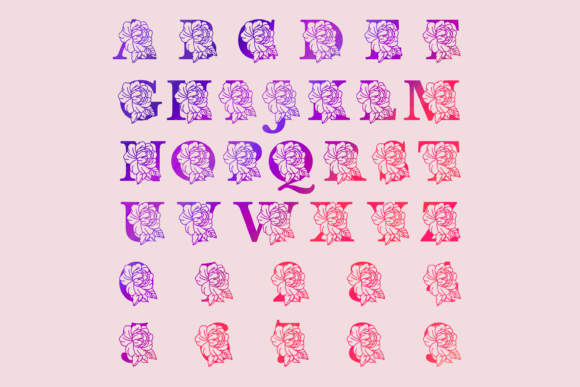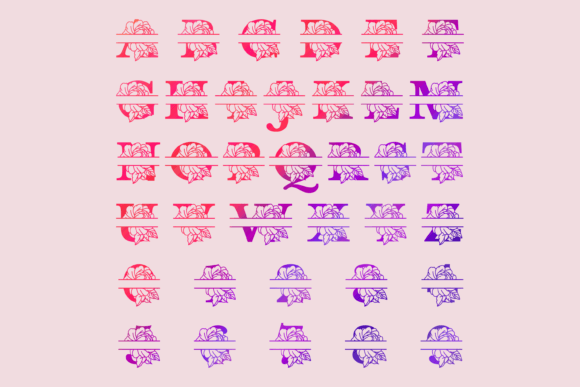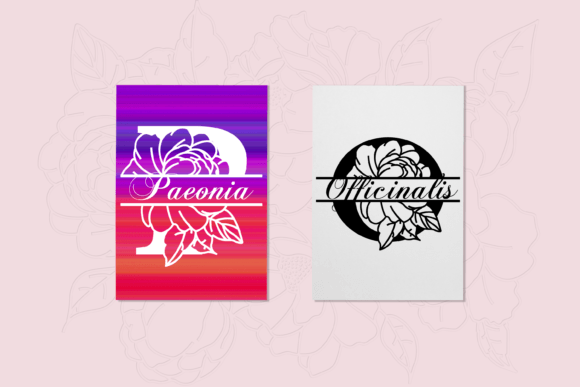
Introduction to Peony Split Font
Have you ever found yourself in the midst of a creative project, desperately searching for the perfect font to add that extra oomph? The search can be overwhelming, especially when you’re looking for something elegant and unique. That’s where the Peony Split Font comes in – a high-quality, botanical decorative font that will elevate your designs to the next level.
Consisting of two styles, regular and split, this font is an absolute treasure trove for designers. The split style, in particular, offers a level of sophistication and whimsy that’s hard to find elsewhere. Imagine adding a touch of delicate beauty to your custom designs, DIY crafts, or any other creation that requires a lovely touch – the Peony Split Font is the perfect design resource to make that happen.
Key Features of Peony Split Font
- High-quality design perfect for a creative project, offering a unique and elegant touch.
- Transparent background, allowing for seamless integration with any design resource.
- Font size: 1280 x 1280 pixels, ensuring high-resolution quality and crisp text.
- Unique split design, featuring a combination of upper and lower case letters for a creative twist.
- Perfect for use in digital art, graphic design, and other creative projects where a high-quality, unique font is required.
Honest Review: Peony Split Font
I recently had the chance to work with the Peony Split Font, and I must say it’s been a game-changer for my high-quality creative projects. This design resource is a gem, and I’m excited to share my honest review with you.
- ✨ Beautiful, intricate design that’s perfect for wedding invitations, greeting cards, or any project where you want to add a touch of elegance.
- ✨ The font is incredibly versatile and can be used in a variety of contexts, from formal to whimsical.
- ✨ The transparent background makes it easy to customize and use with any background image or color.
- ⚠️ The font is a bit too ornate for some projects, and may not be the best choice for simple or modern designs.
Overall, I’m thoroughly impressed with the Peony Split Font. It’s a high-quality design resource that’s perfect for any creative project. While it may have a few limitations, the benefits far outweigh the drawbacks. If you’re looking for a unique and elegant font for your next design project, I highly recommend giving it a try.
The Peony Split Font is a versatile design resource that can be used for a variety of creative projects, including wedding invitations, birthday cards, and social media graphics. It’s also a great resource for designers who want to create high-quality designs for free, making it a valuable addition to any design library.